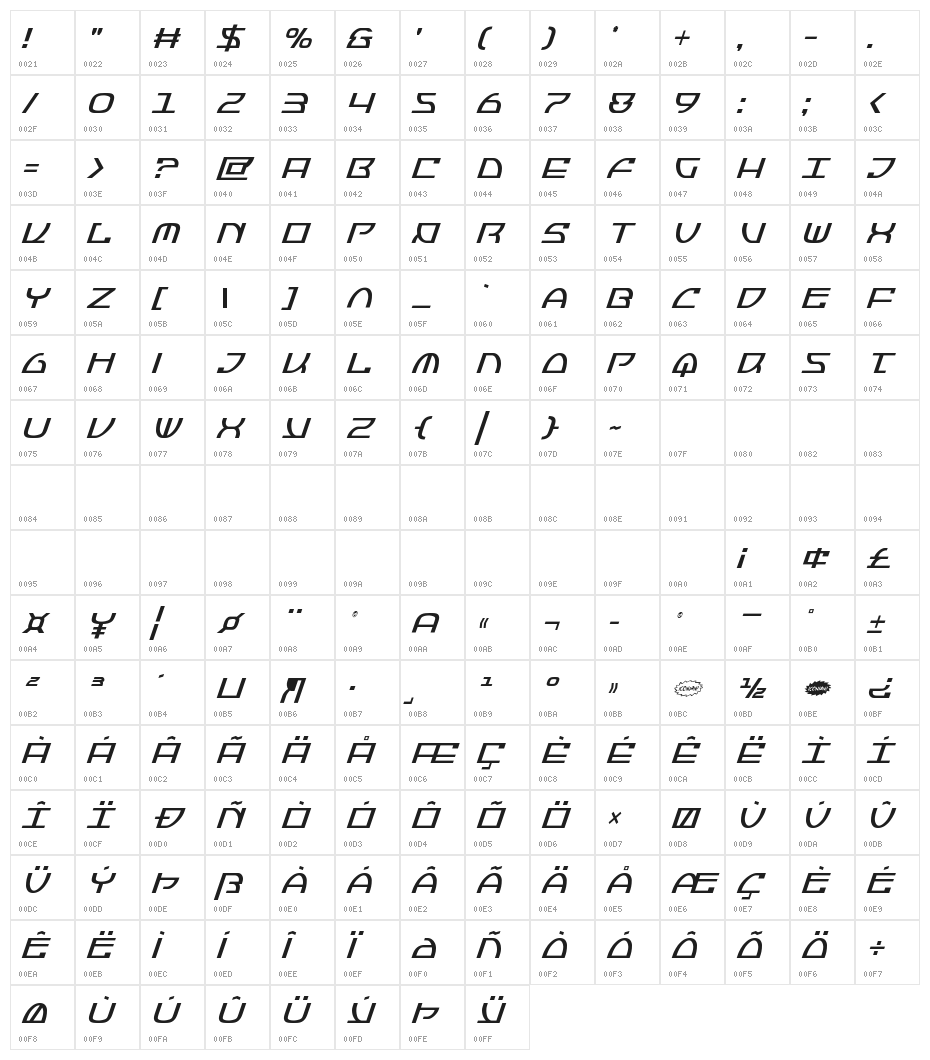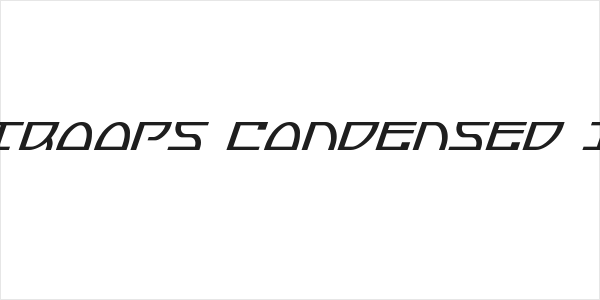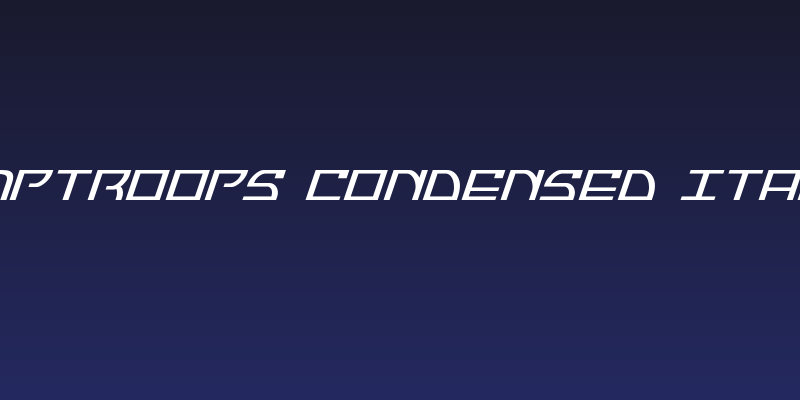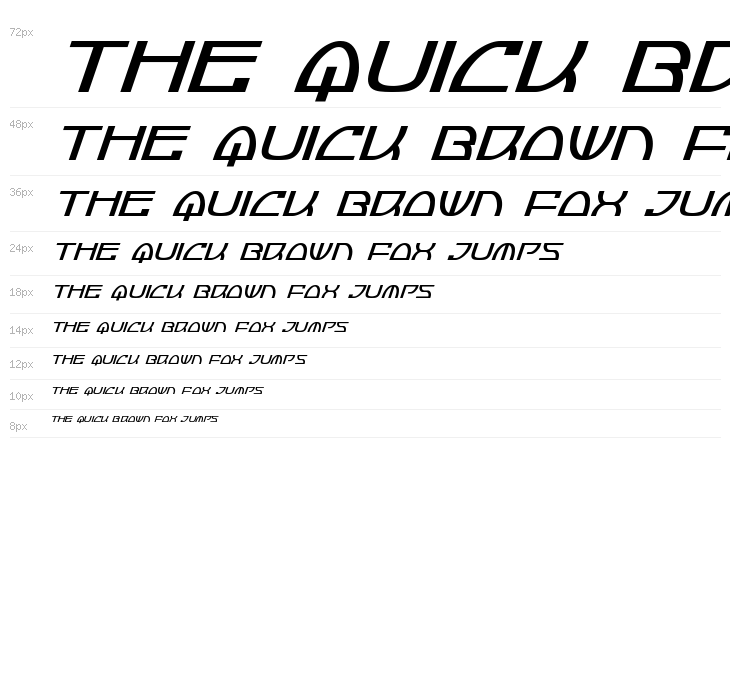
Jumptroops Condensed Italic Font
Jumptroops Condensed Italic Description
This font exhibits a sleek, modern design with a condensed and italicized style. The characters are angular and dynamic, creating a sense of motion and energy. The uppercase and lowercase letters maintain a consistent slant, enhancing the italic effect. The numbers and special characters follow the same design principles, ensuring uniformity across all elements. The overall appearance is futuristic, making it suitable for projects that require a contemporary and edgy look. The spacing between characters is tight, which contributes to its compact and efficient appearance.
| Proposed Projects | Ideal for sports branding, tech logos, futuristic posters, and dynamic web design. |